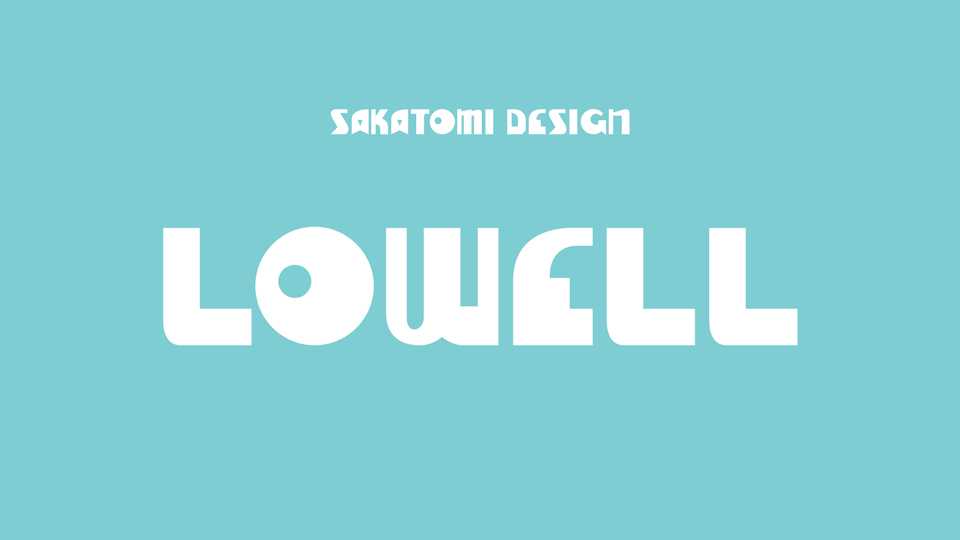
Download Lowell font, a bold and playful display typeface with circular shapes and cutouts. With its unique personality Lowell font is casual enough for informal designs yet bold enough to get any point across.
Designer: SAKATOMI Design